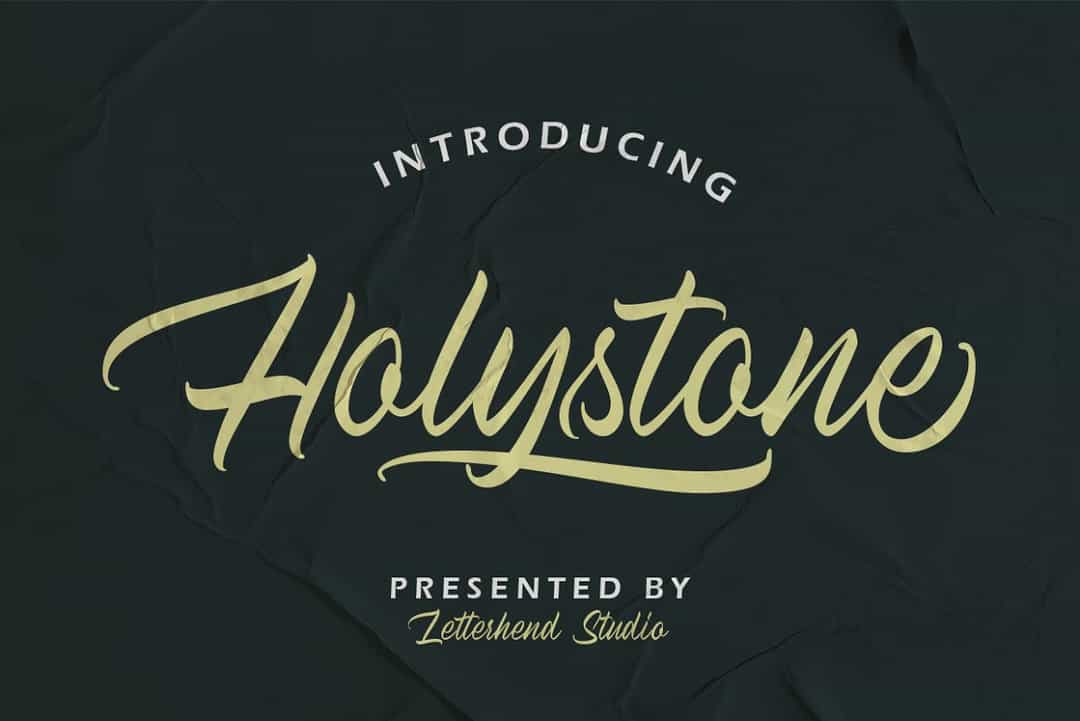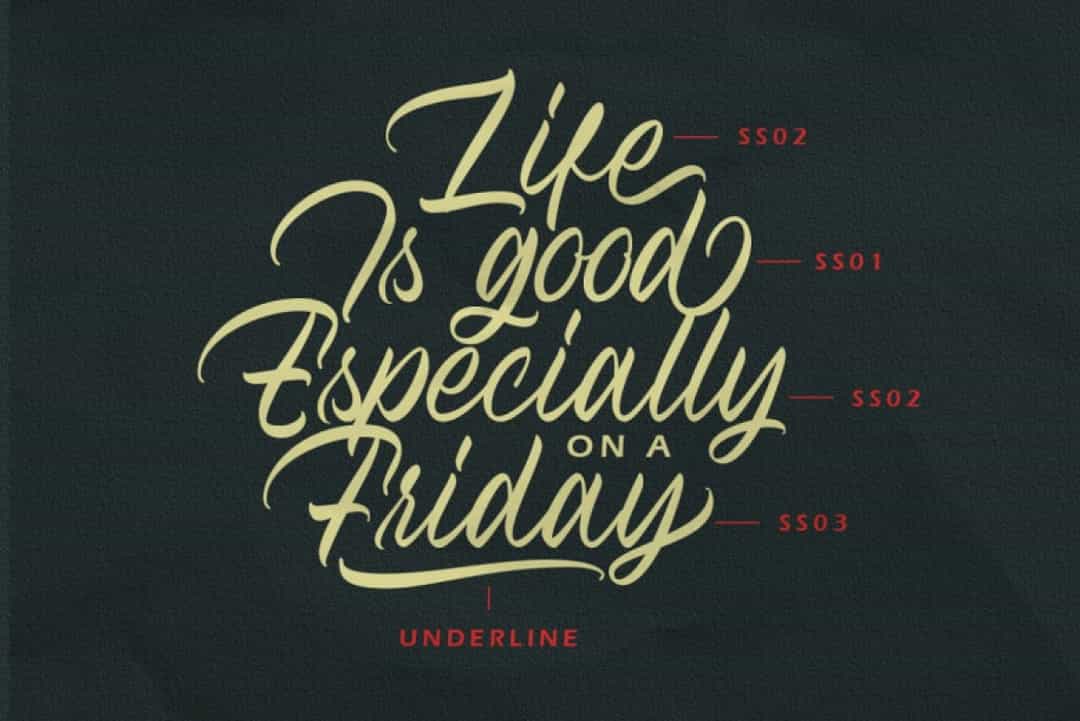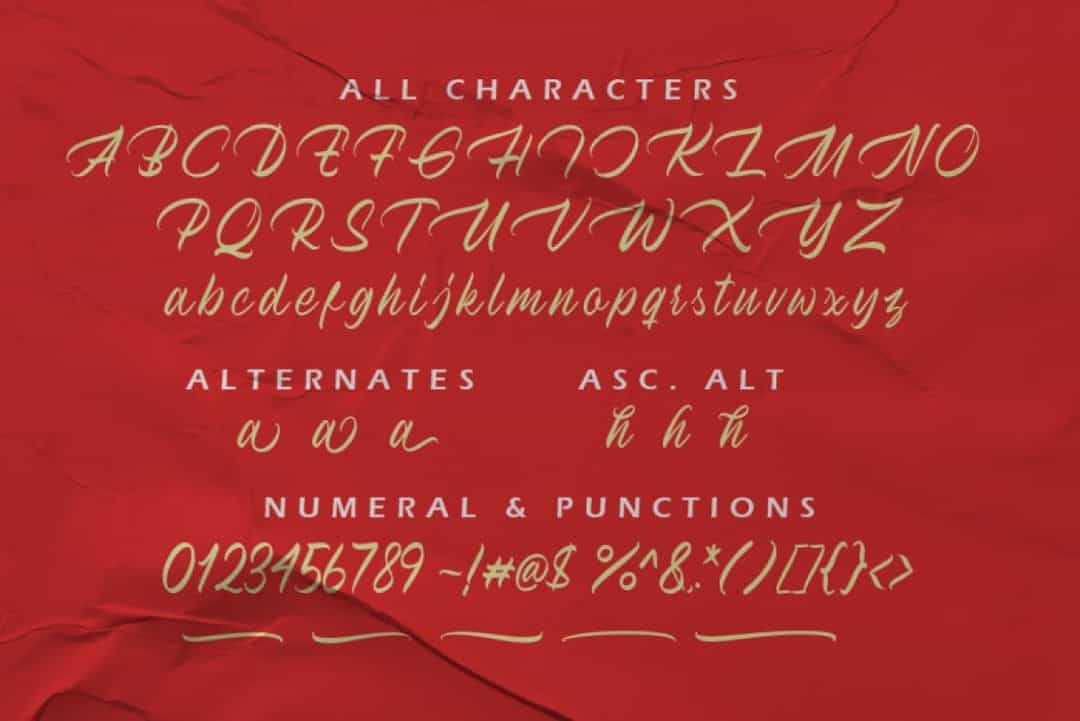
Holystone is an authentic handwriting script typeface ideal for use as an Instagram headline and story, book covers, logos, magazines greeting cards wedding and/or wedding invitations packaging fashion makeup stationery fashion clothing novella labels or any marketing purposes.